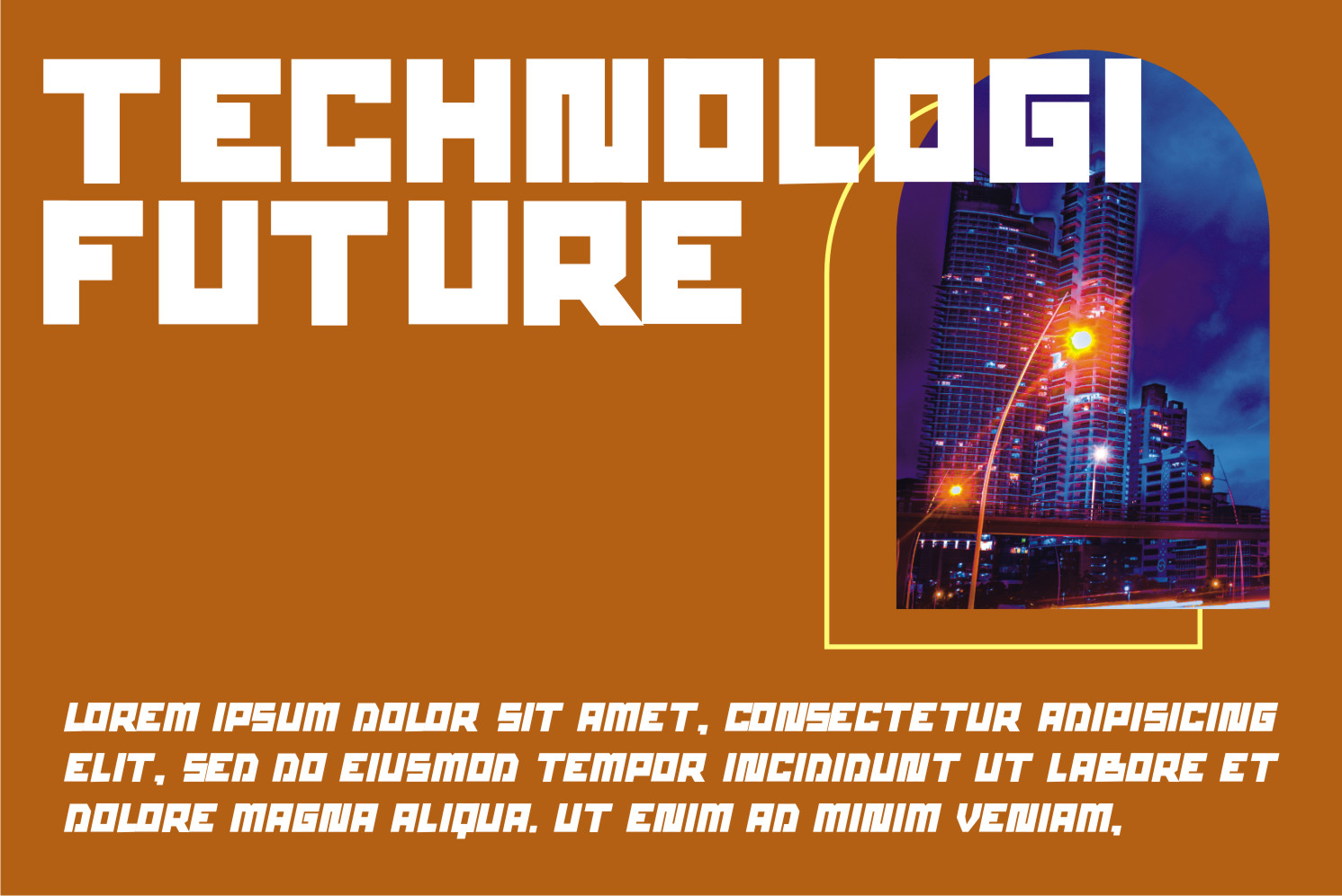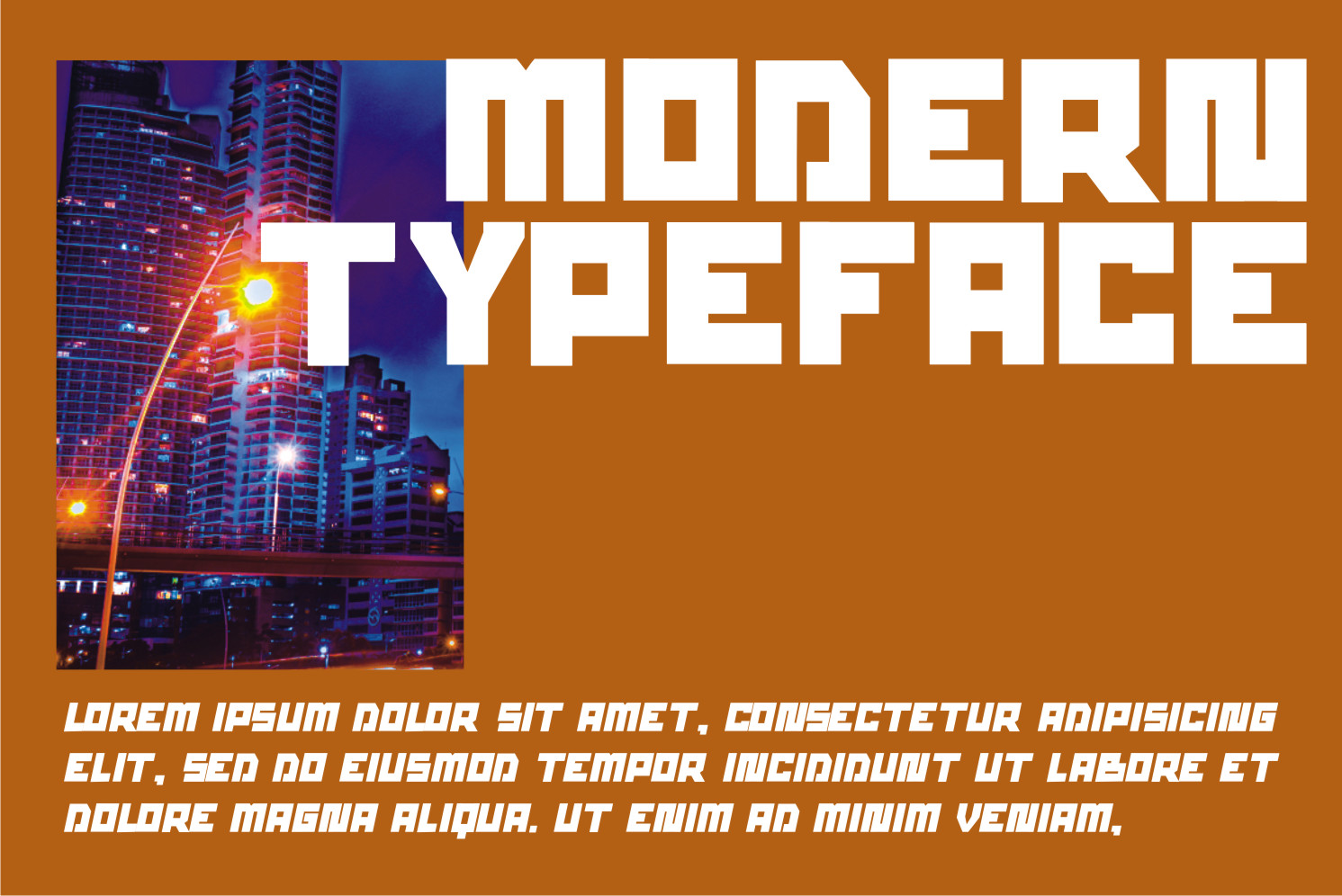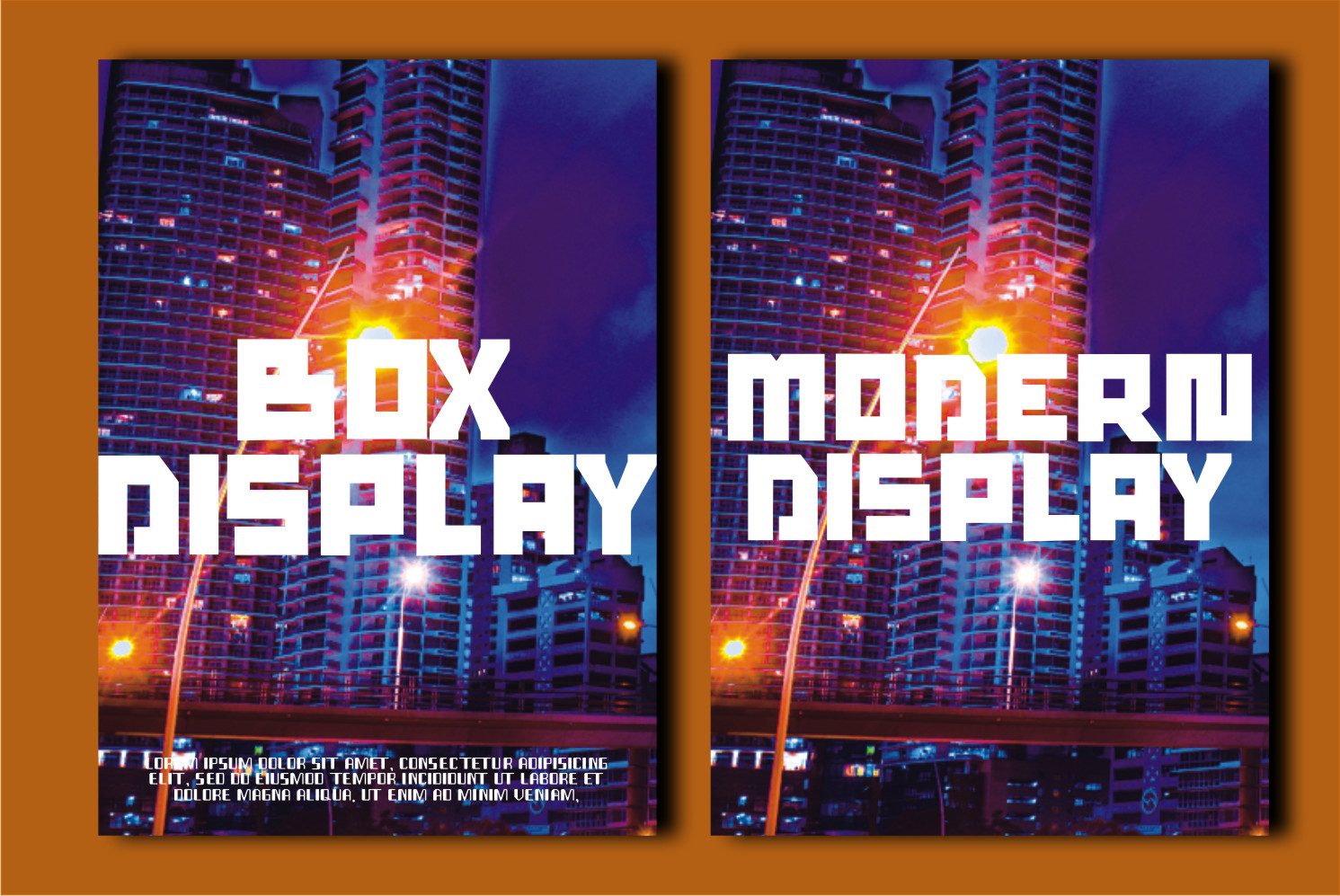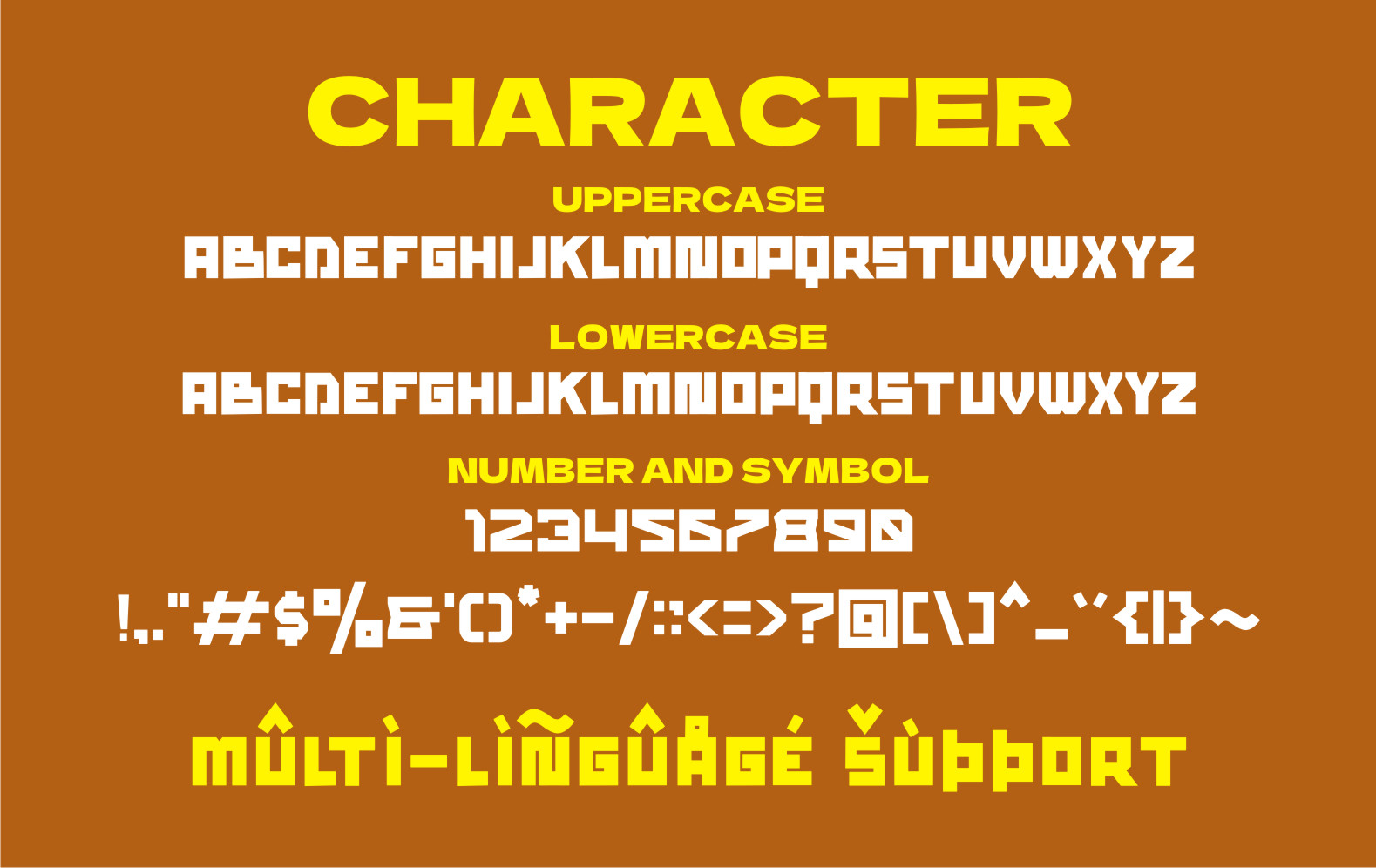
Mega Boxs Display Font
It’s a bold, modern and cool display font. This font is ideal for writing web designs, business cards, or pretty much anything else that requires a futuristic, unique touch.